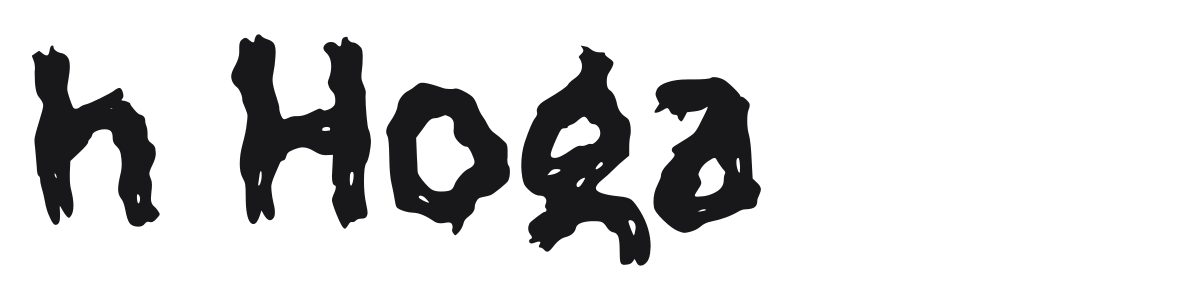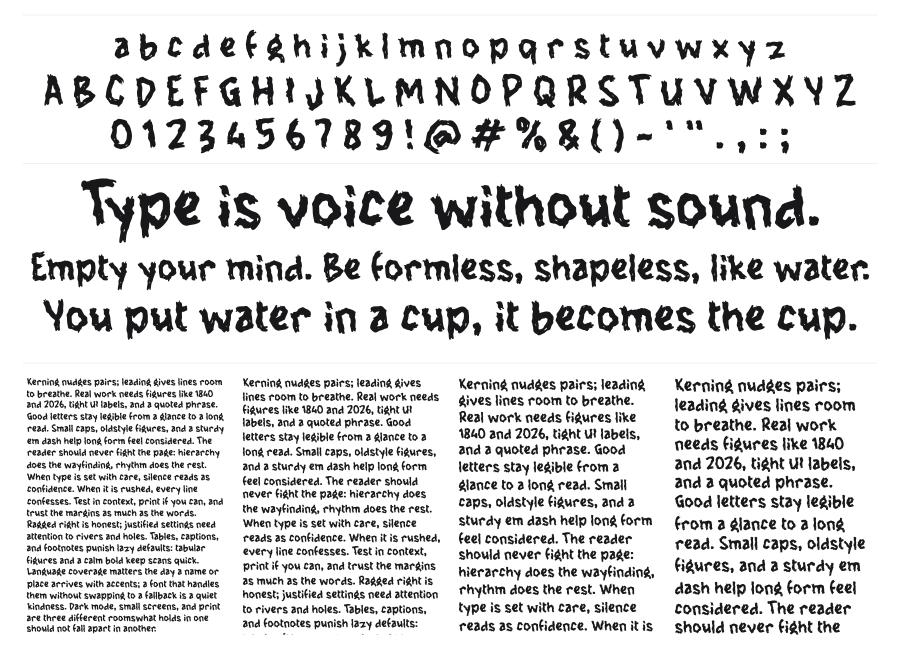
h Hoga
Hoga is a distressed display font from wepfont with characters that look scraped, burned, and worn to the edge of legibility. The rough, eroding strokes give it a genuine sense of decay rather than a polished simulation. It suits horror titles, punk posters, and underground branding where unease is the point.